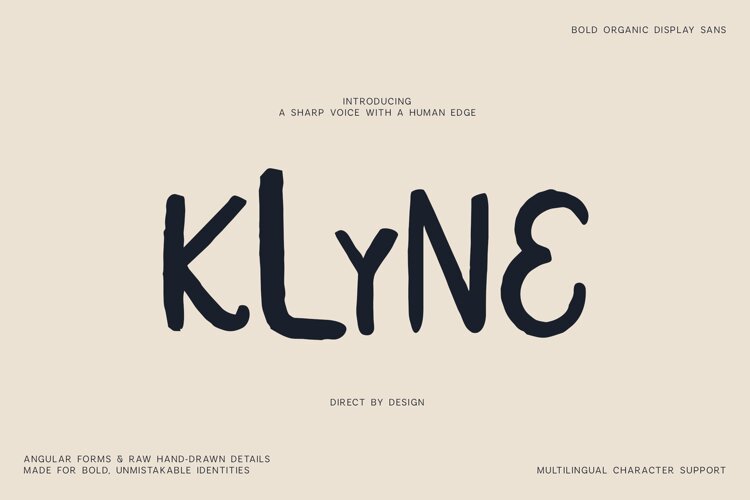
Klyne Bold Organic Display Sans Font
Klyne is a bold hand-drawn display sans font combining organic irregularity with strong, graphic letterforms. Built around angular shapes, uneven handmade details, and distinctive proportions, Klyne brings a confident and memorable personality to contemporary design.
Its handcrafted construction gives typography the energy of custom lettering without becoming difficult to use. The result is a versatile display typeface that feels direct, modern, creative, and full of character.
Klyne is especially suited to logos, brand identities, packaging, product labels, posters, advertisements, editorial design, magazine covers, social media graphics, apparel, merchandise, album covers, book covers, restaurant branding, event graphics, lifestyle products, and striking headline typography.
Large sizes highlight its unusual shapes and organic details, while tighter compositions create strong logo marks and visual identities.
The font also includes an extended multilingual Latin character set with accented letters, numerals, punctuation, symbols, and currency characters for a wide range of international projects.